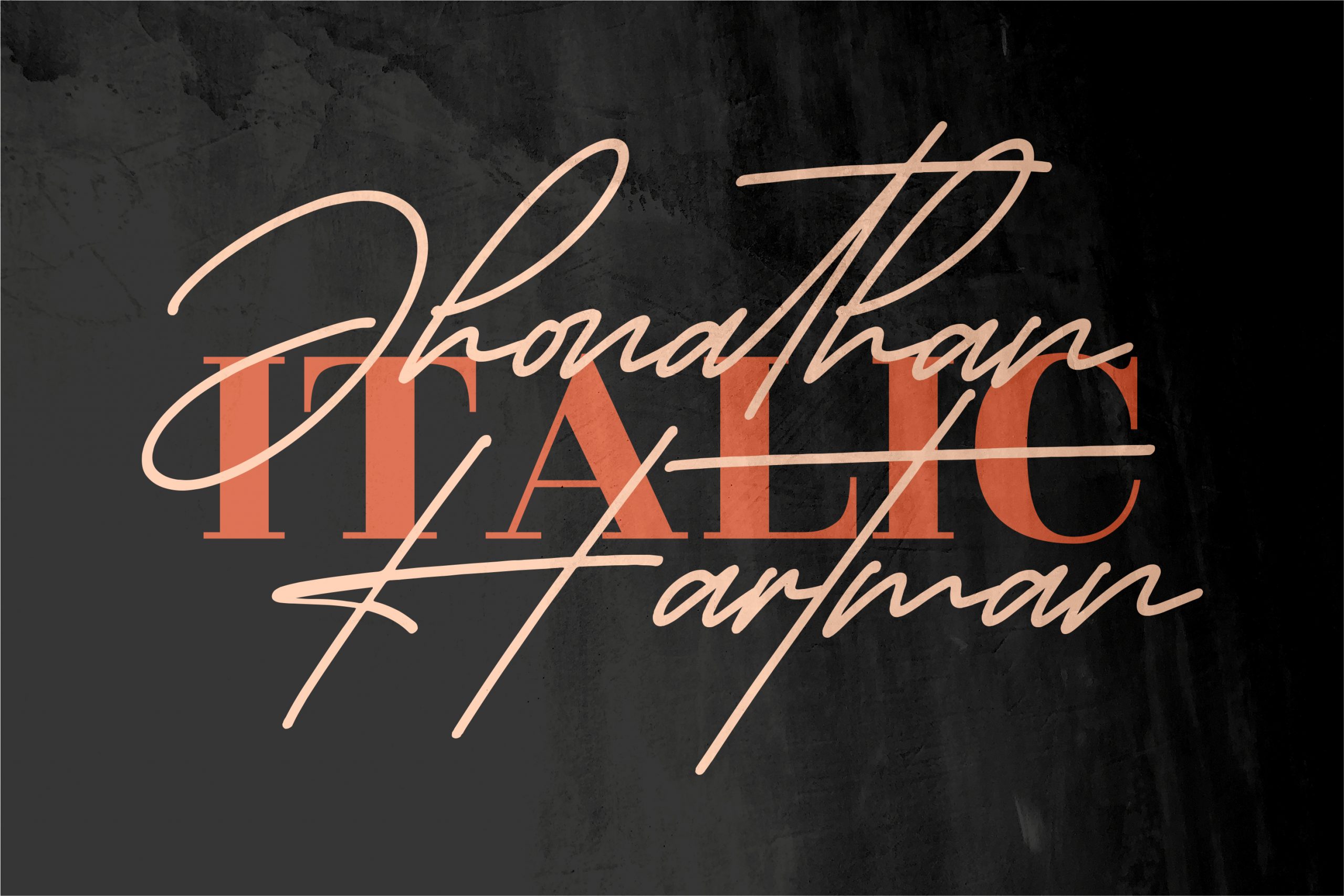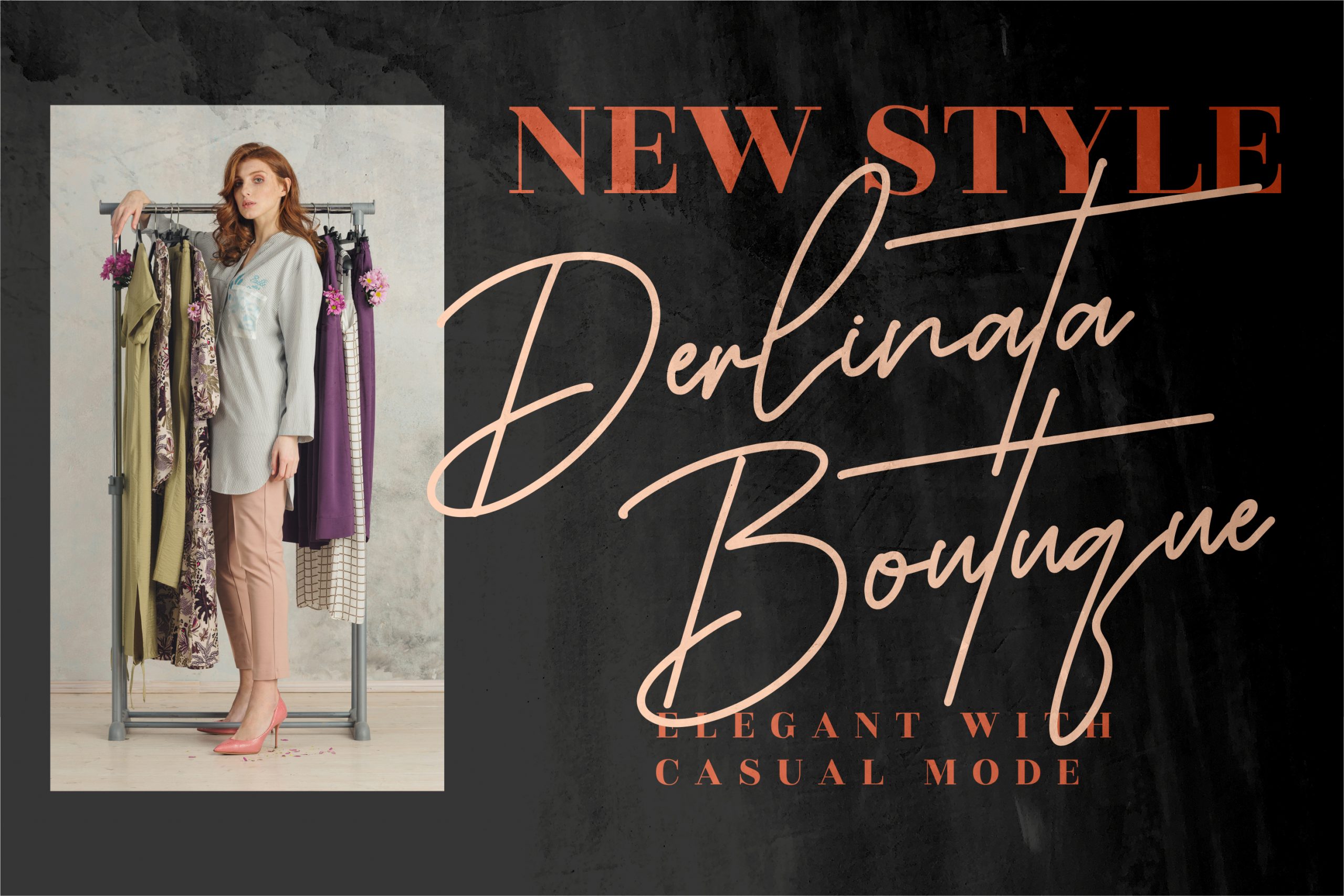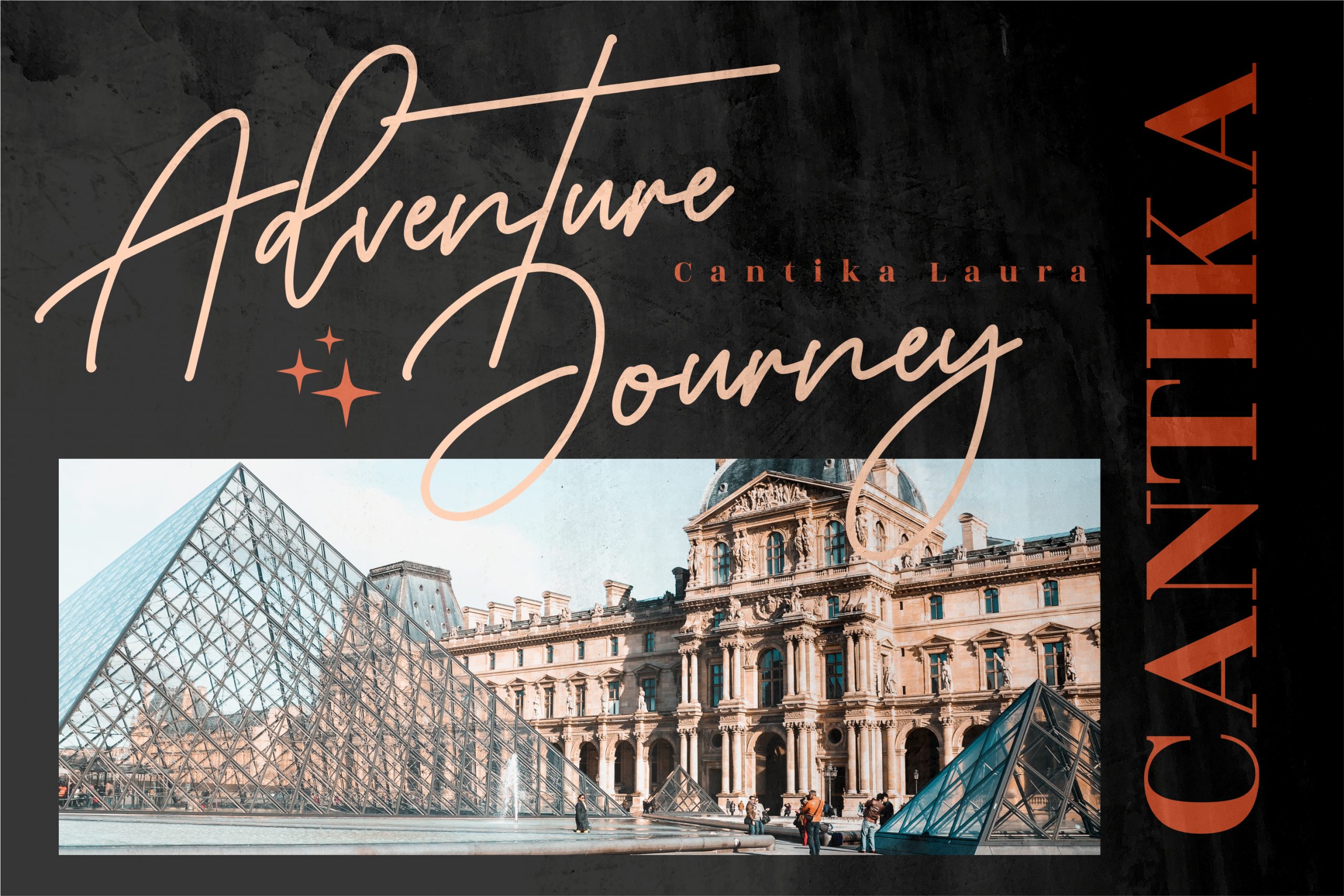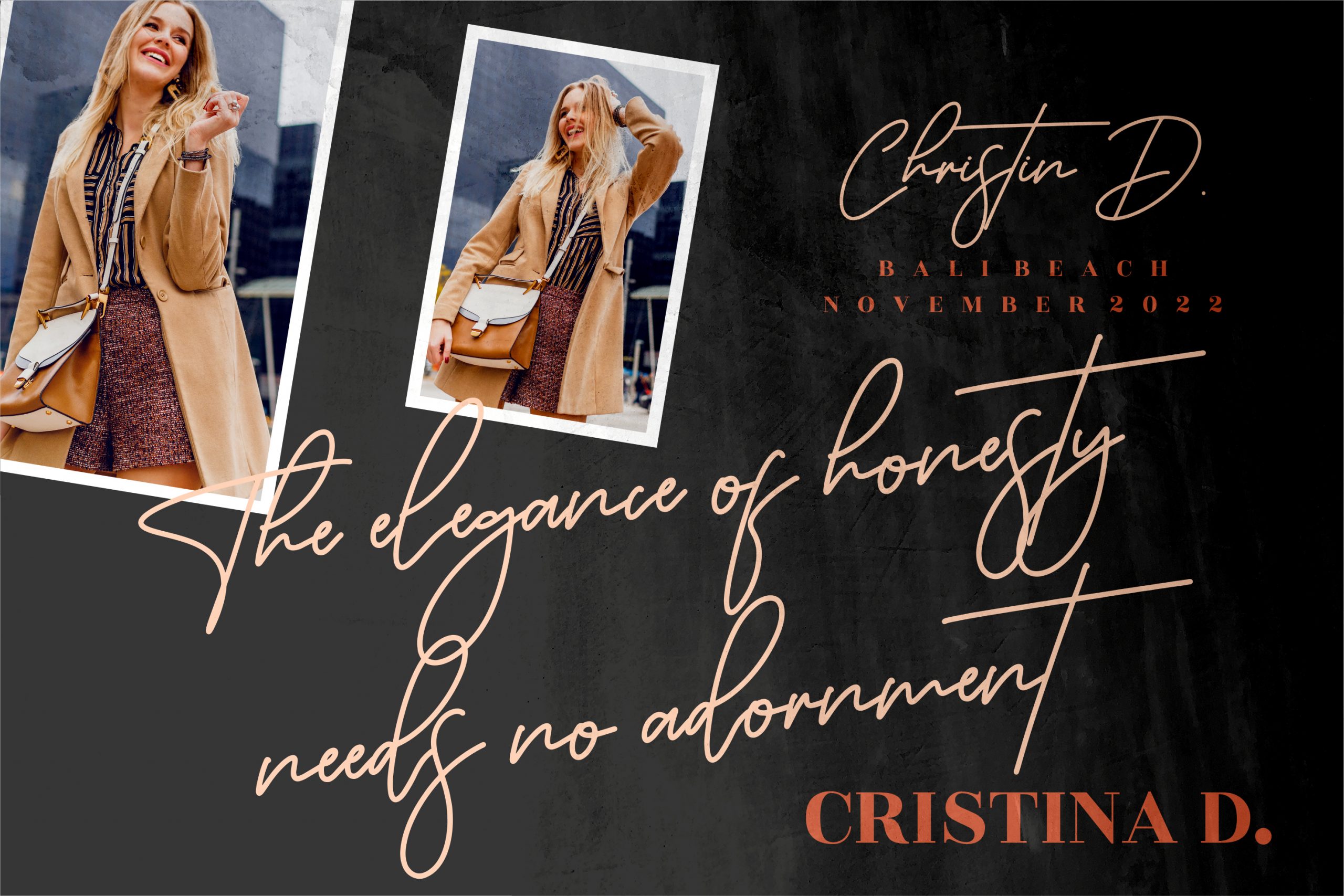
Jhonathan Hartman Font
Jhonathan Hartman Font – Monoline Signature Font, from Perspectype Studio, is a premium signature font, suitable for any projects such as: logos, branding projects, homeware designs, product packaging, mugs, quotes, posters, shopping bags, t-shirts, book covers, name card, invitation cards, greeting cards, label, photography, watermark, special events, and all your other luxury projects that need a premium signature taste.